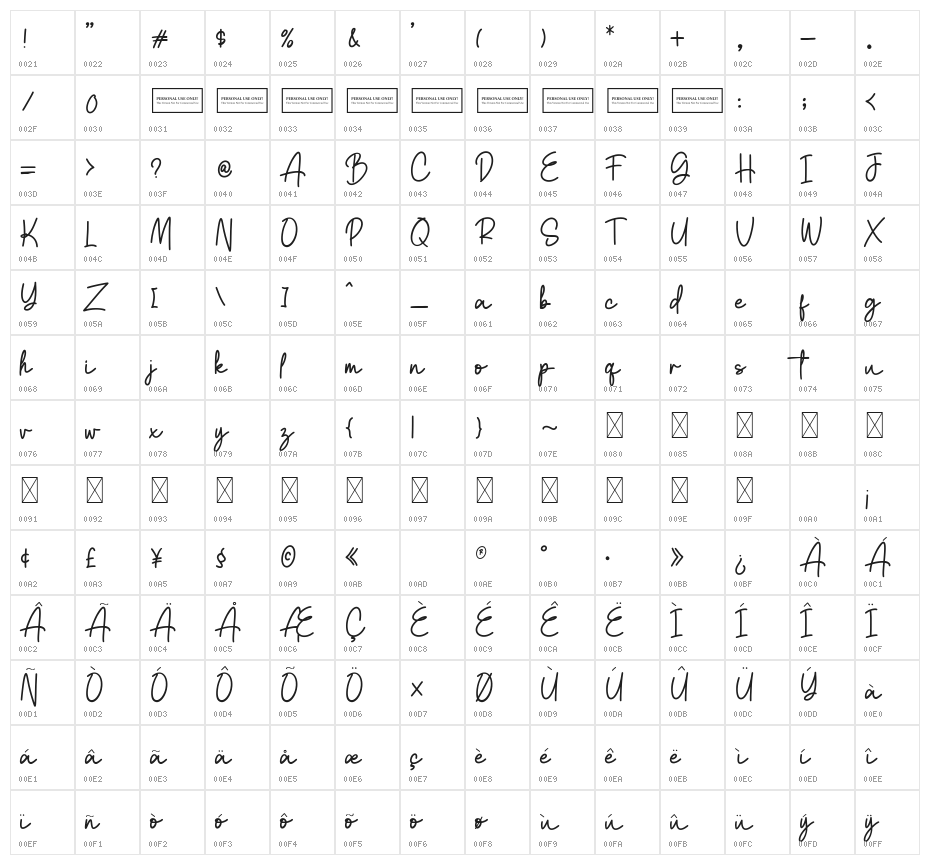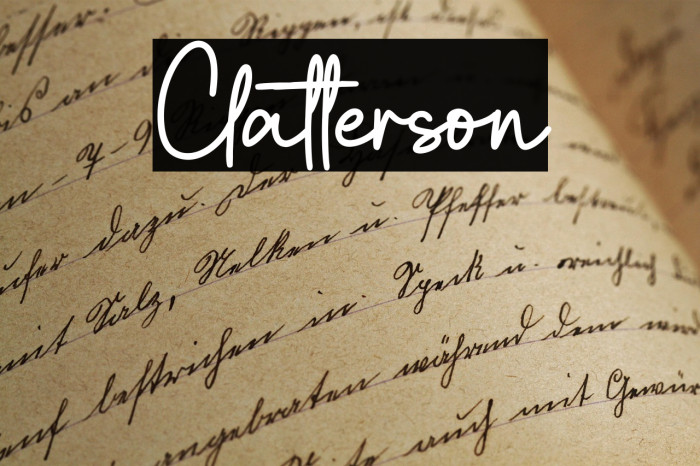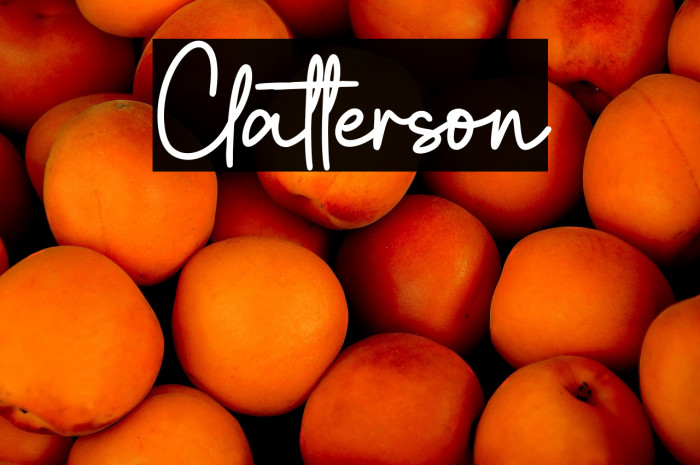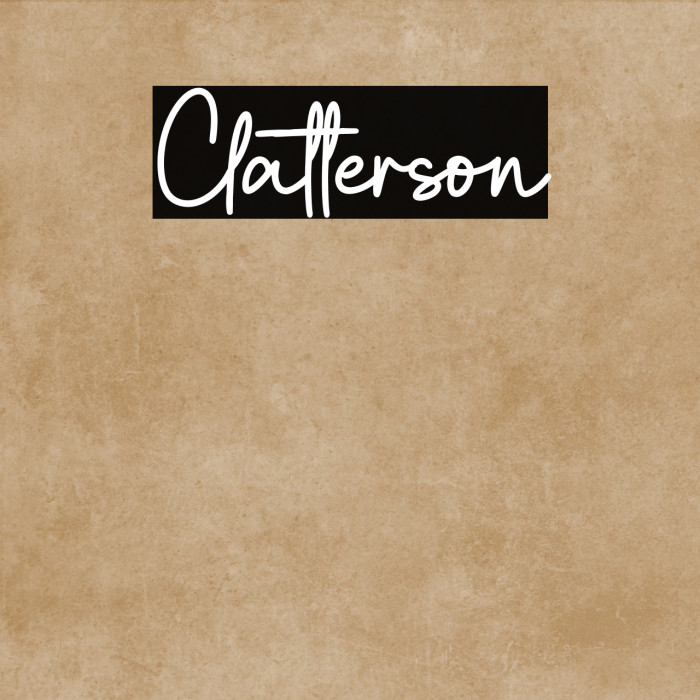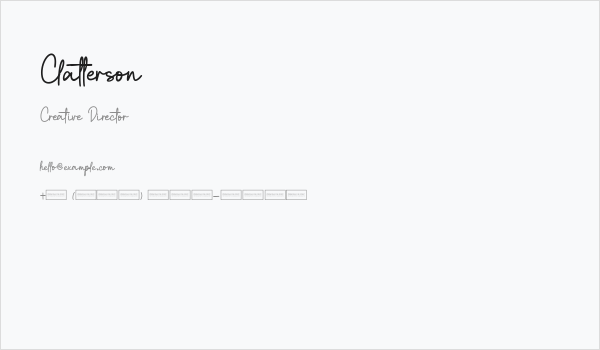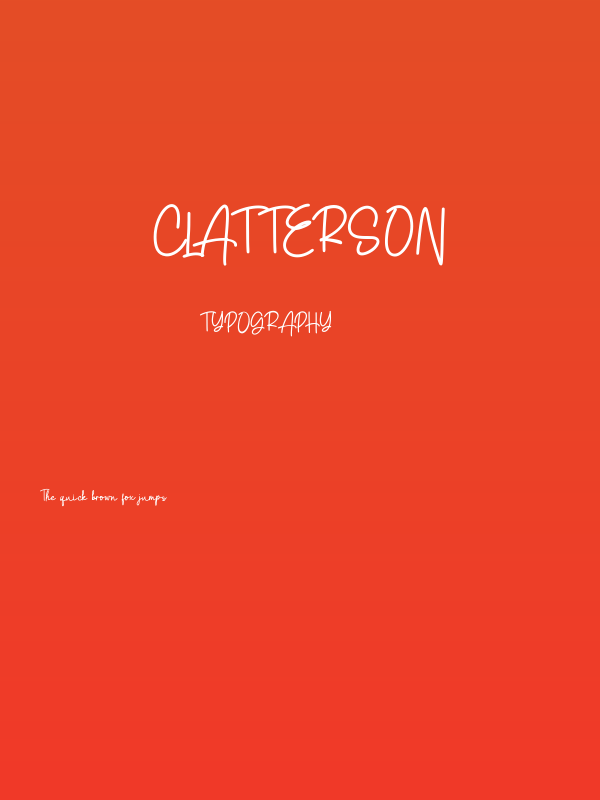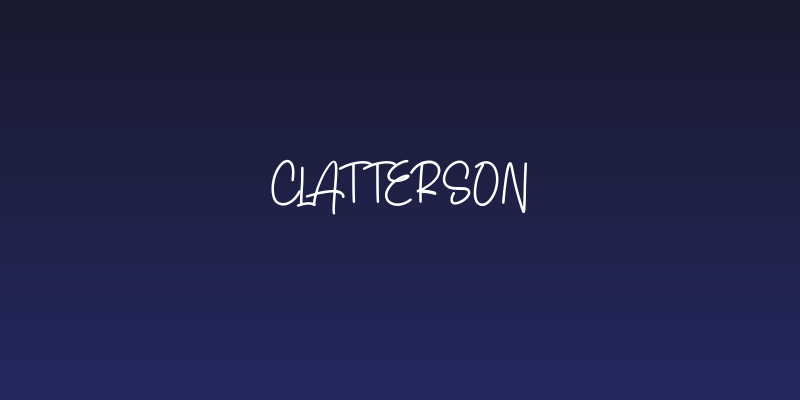
Clatterson Font
Clatterson Description
This font features a playful and casual handwritten style, characterized by its smooth, flowing lines and slightly irregular letterforms. The uppercase letters are bold and dynamic, with a sense of movement that adds a lively touch. The lowercase letters maintain a consistent flow, enhancing the font's readability while preserving its informal charm. The numerals and special characters are designed to match the overall aesthetic, ensuring a cohesive look across all text. This font's unique style makes it suitable for projects that require a personal and approachable feel.
| Overall Style | Casual |
| Use Case | Logos, Headlines, Informal Text |
| Proposed Projects | Ideal for greeting cards, invitations, personal branding, and social media graphics. |